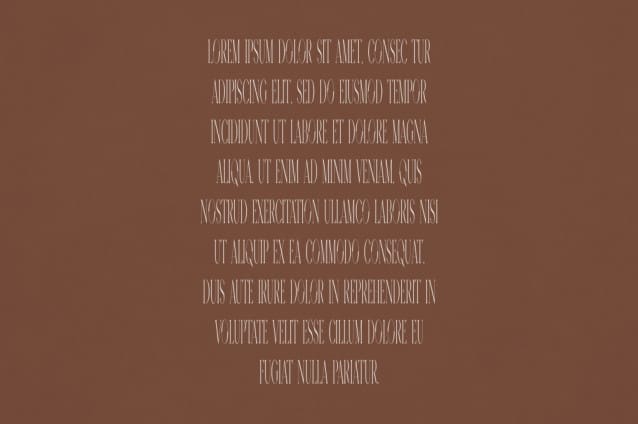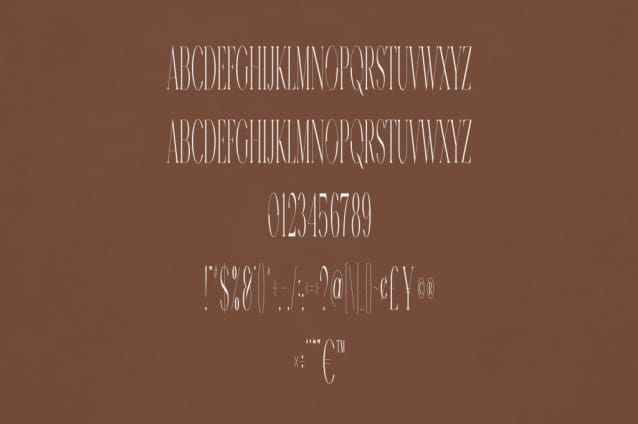
Daisy Font
Daisy Font is an elegant and versatile font that will make your typography truly unique! It will enchant every logo, branding, headline, or plain text!